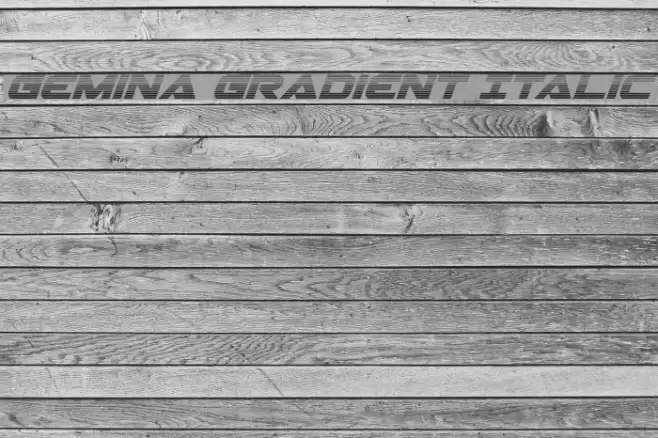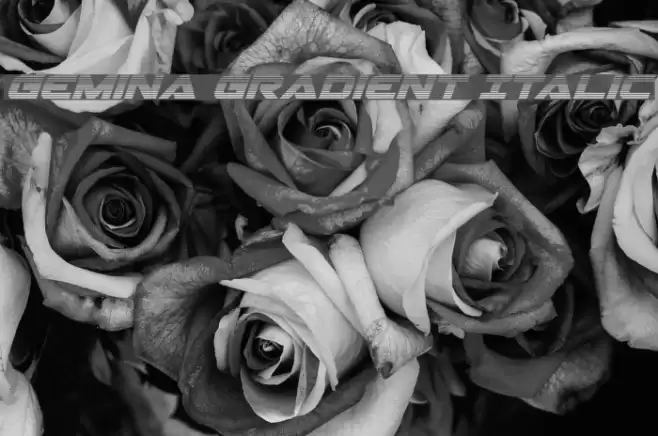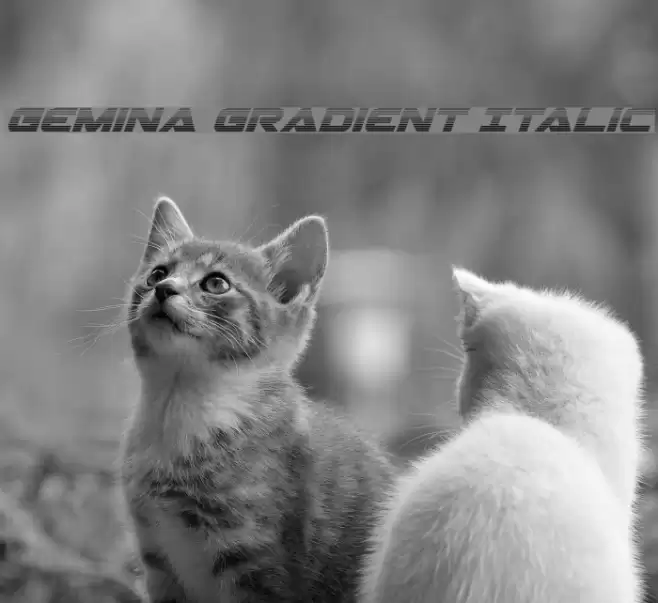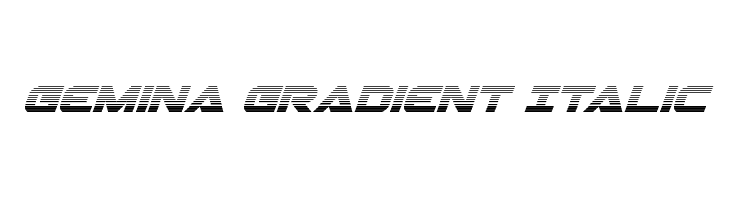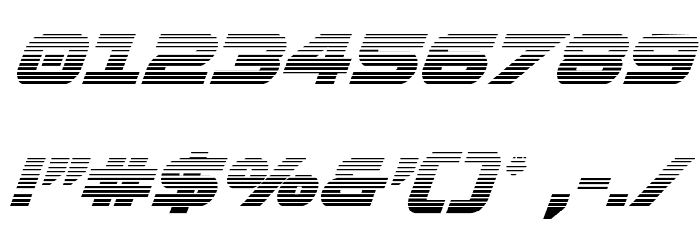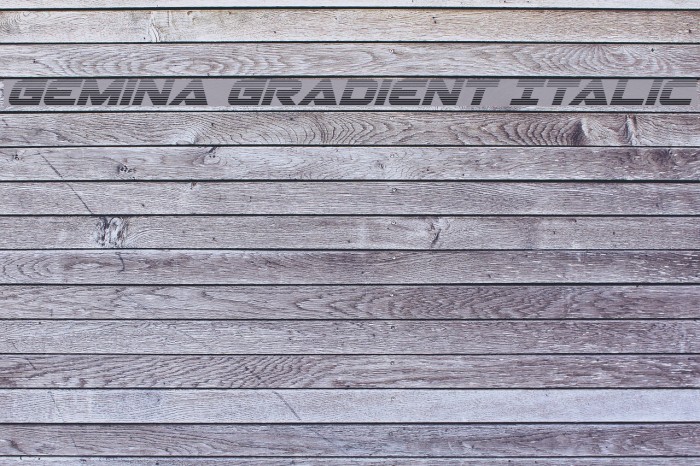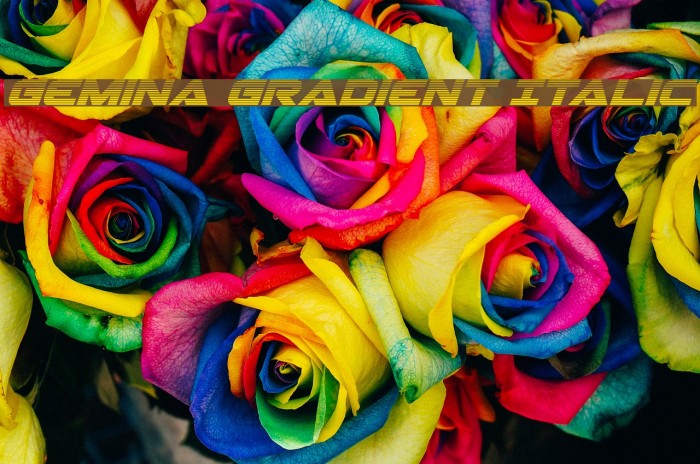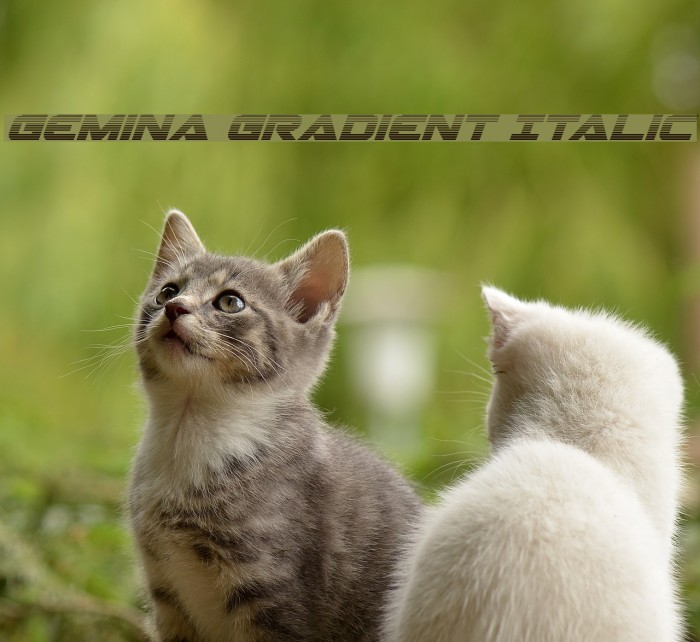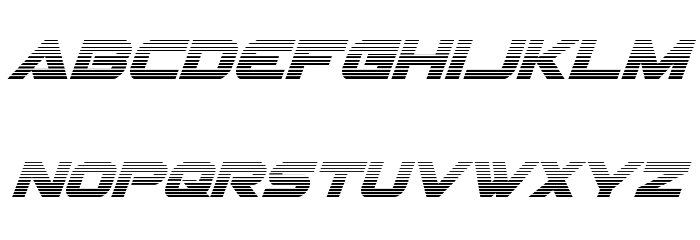
Gemina Gradient Italic Font
Gemina Gradient Italic Description
This font features a dynamic, futuristic style with a gradient effect that gives each character a sense of motion and depth. The italicized slant enhances its sleek and modern appearance, making it ideal for projects that require a bold, eye-catching typeface. The characters are composed of parallel lines that create a striped pattern, adding a unique texture and visual interest. This design is consistent across uppercase and lowercase letters, numbers, and special characters, ensuring a cohesive look. The font's distinct style makes it suitable for creative and innovative applications.
A futuristic, italicized font with a gradient effect and striped pattern from Uncategorized fonts.
- Proposed Projects: Ideal for sci-fi themed designs, tech branding, video game titles, and modern posters.